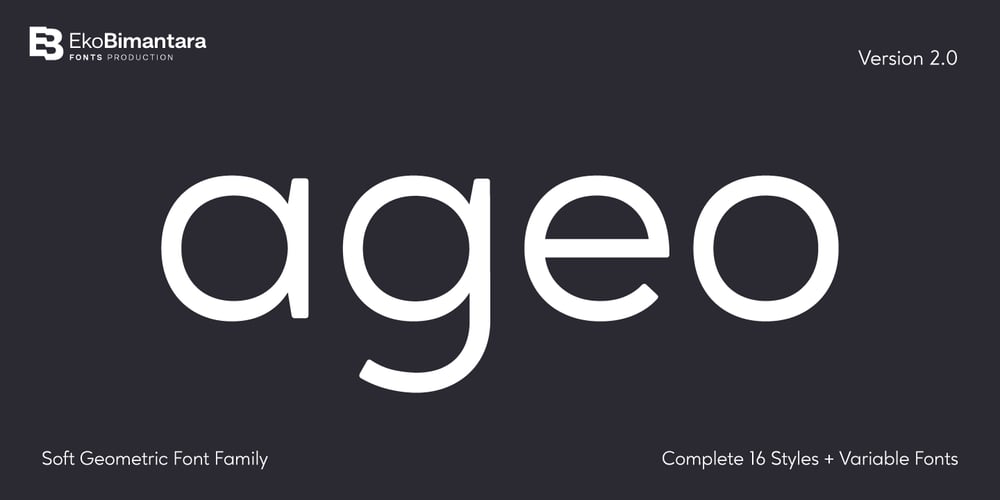
Ageo Font Family was designed by Eko Bimantara and published by Eko Bimantara. Ageo contains 18 styles and family package options. Ageo is a soft geometric sans serif font family. Contain 8 weights from Thin to Heavy with matching Italics. It’s a compromise of bauhaus and modern styles with a soft, minimalist, elegant, warmth, quirky, yet still purposed to be versatile and easy to read. Ageo was created to satisfy reading experience, it’s compatible for text and also display, fit for headers, titles, posters, websites, brands, apps and other various design or creative projects. It contains several OpenType features: Standard ligature, figures variation (old style, fraction, numerator, denominator), and also broad latin language support. Ageo has been trusted by large enterprises and is still one of our best selling works. This latest update version 2.0 provides some fixes to the letterforms, spacing, and additional 2 variable font files, also new fonts format to support broad reading experiences.